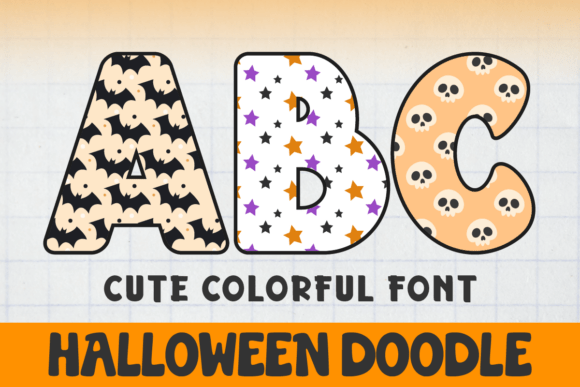
You know that moment when you’re browsing through your craft stash, and a burst of creativity hits you? The spark of an idea, the thrill of a new project, and the excitement of bringing it to life – that’s what makes crafting so magical! As the spooky season approaches, you might be thinking of ways to give your projects a festive touch. That’s where the Halloween Doodle Font comes in – a delightful display typeface that will transport your crafts to a world of whimsy and wonder.
This charming font is more than just a pretty face; it’s a versatile tool that can add a playful, doodle-style twist to your designs. Whether you’re a seasoned crafter or just starting out, the Halloween Doodle Font is sure to bring a smile to your face and a dash of fun to your projects. With its adorable and vibrant style, it’s the perfect choice for making your designs stand out and casting a spell on your audience.
Halloween Doodle Font Key Features
- Unique Characteristics: The font features a whimsical, hand-drawn design with intricate doodles and ornaments, adding a touch of Halloween magic to any design.
Halloween Doodle Font Review
Overall, I think the Halloween Doodle Font is a great addition to any spooky-themed design project. ✨ The hand-drawn, doodle-like style gives it a playful, whimsical feel that’s perfect for Halloween invitations, party decorations, or even social media graphics.
- ✨ The font’s unique, hand-drawn style adds a personal touch to designs.
- ✨ It’s perfect for creating a playful, spooky atmosphere.
- ✨ The font is relatively easy to read, even at smaller sizes.
- ⚠️ The font may not be suitable for formal or professional designs.
- ⚠️ It’s not as versatile as some other fonts, and may not be suitable for non-Halloween-themed designs.
- ⚠️ Some letters may not be as detailed or well-drawn as others.
I think the Halloween Doodle Font is a fun, unique font that’s perfect for adding a spooky touch to designs. While it may have some limitations, it’s a great addition to any designer’s toolkit, especially during the Halloween season.
To get the most out of the Halloween Doodle Font, use it to create spooky and festive designs for Halloween-themed invitations, decorations, and party materials. Experiment with different font sizes, colors, and effects to create a unique and eye-catching design.
The Halloween Doodle Font is perfect for creating Halloween-themed designs, such as:
– Invitations and party invitations
– Decorations and wall art
– Party materials and accessories
Alternatives to Halloween Doodle Font
Great Vibes Font is a playful, handwritten font that can be used for various designs, including invitations, posters, and social media graphics. It is ideal for creating a whimsical and carefree atmosphere.
Comparison to Halloween Doodle Font: While both fonts have a whimsical feel, Great Vibes Font is more versatile and can be used for a wider range of designs. It lacks the spooky and seasonal elements of Halloween Doodle Font, but offers a more general playful aesthetic.